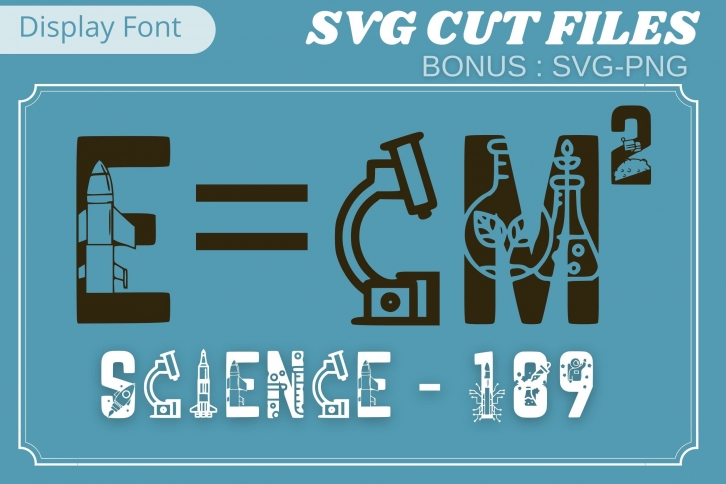
No matter the topic, Science font will be an incredible asset to your fonts’ library, as it has the potential to elevate any creation.
It is perfect for any branding project such as logos, t-shirt printing, creative products, or pretty much anything that could benefit from a fancy vibe.